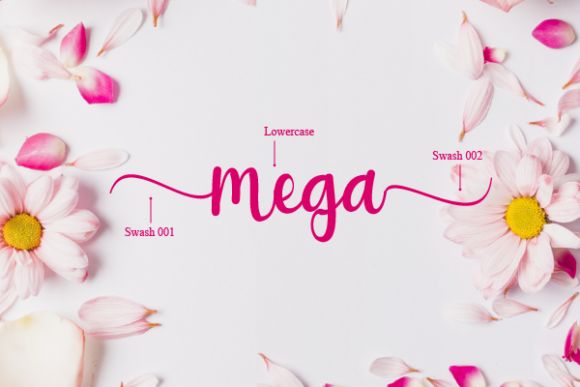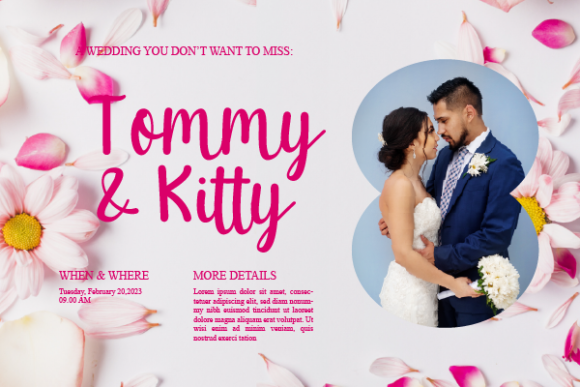
Donita Font
db-ku.com - Script & Handwritten -- Donita is a classy and elegant handwritten font that can work really well for more sophisticated projects. This font will be ideal for writing wedding invitations, cards, or any other design that may need a romantic, personalized touch!